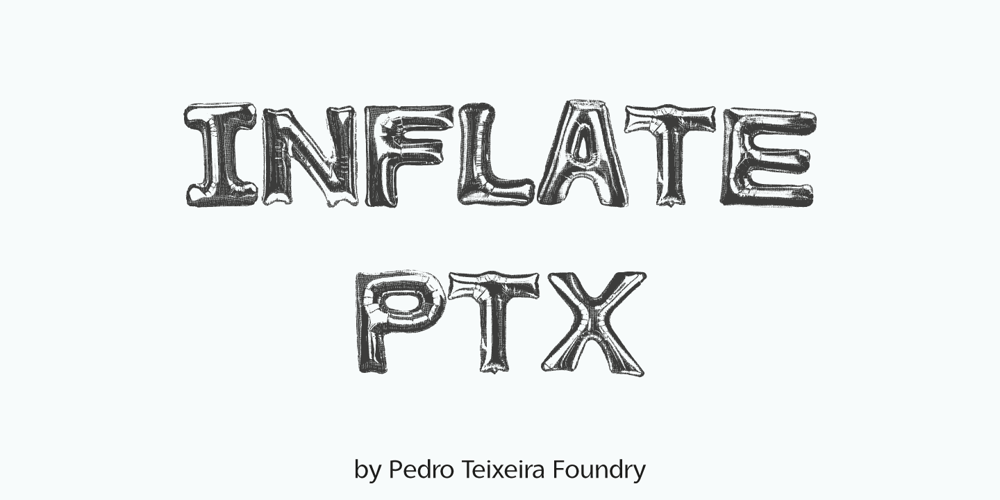
Inflate PTx Font Family was designed by Pedro Teixeira and published by Pedro Teixeira. Inflate PTx contains 4 styles and family package options. Introducing the Inflate PTx font family, a delightful and playful typeface collection that embodies the buoyant spirit of celebration and festivity.This font can be use in old and new apps that use/read fonts, because it’s format (old school format :)), not OpenType SVG format. To install fast on the PC: right click in the OpenType file, then “Install”. But if you want to open the file, please be pacient. It takes time to open and read the OpenType file depending of the capacity of your PC.The Inflate PTx font family is tailor-made for creative projects, from birthday party invitations and children’s book illustrations to social media graphics for Instagram or themed event posters. Its rounded edges and bubbly forms infuse any design with an infectious sense of joy and lightheartedness, making it an ideal choice for those seeking a playful and festive typographic solution.